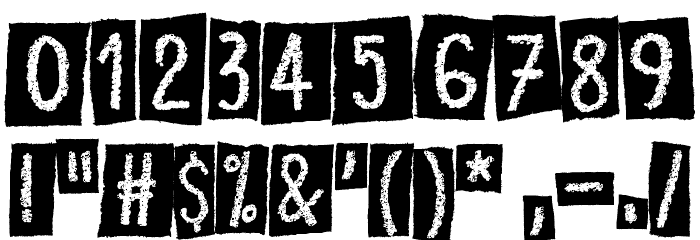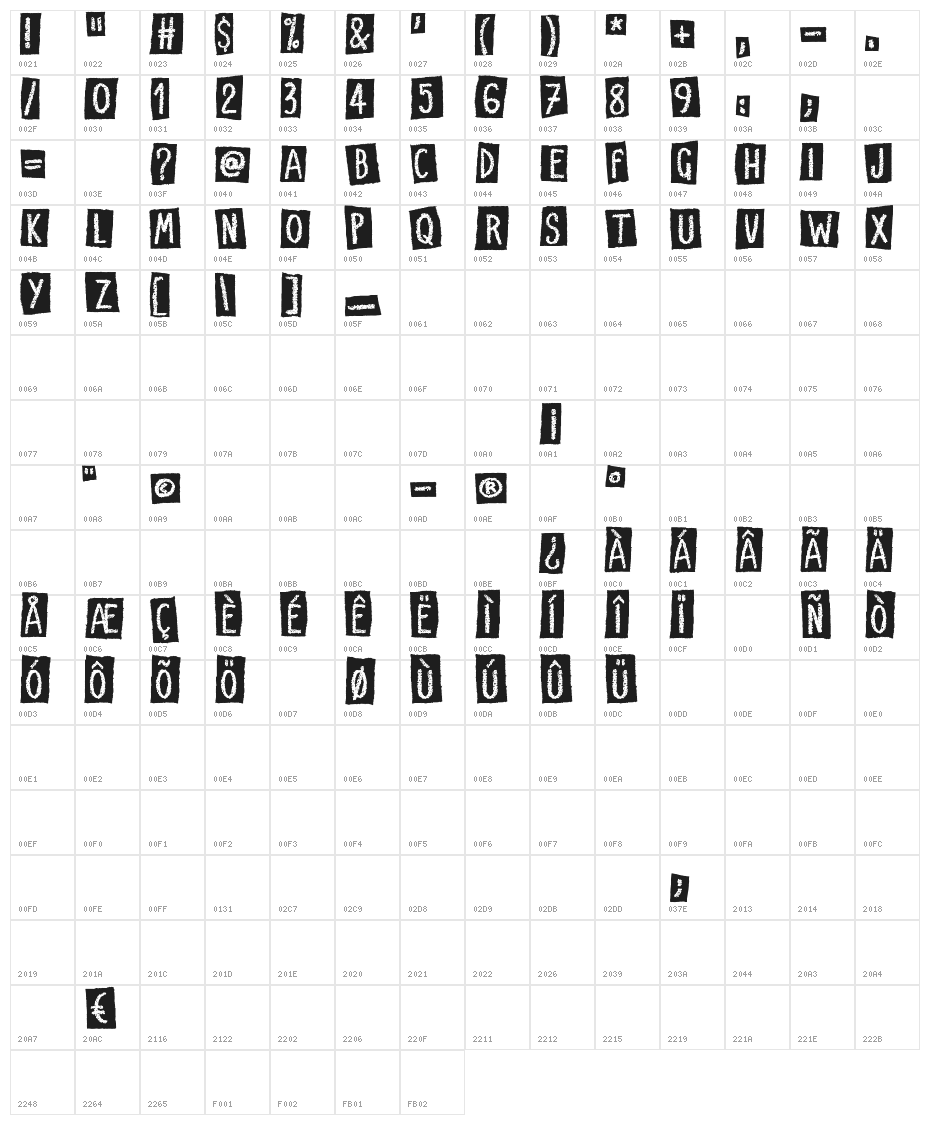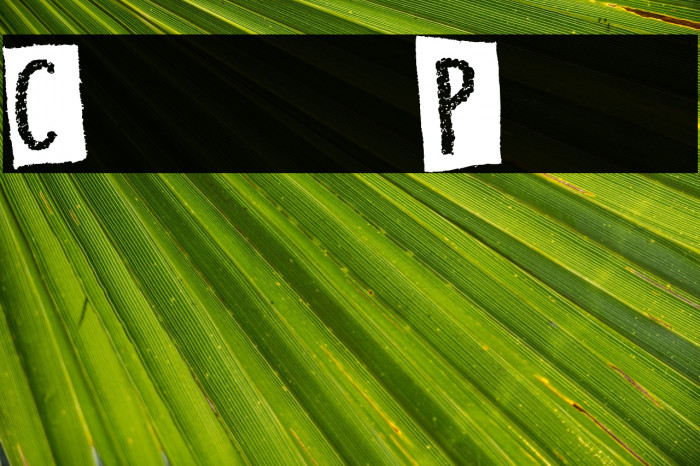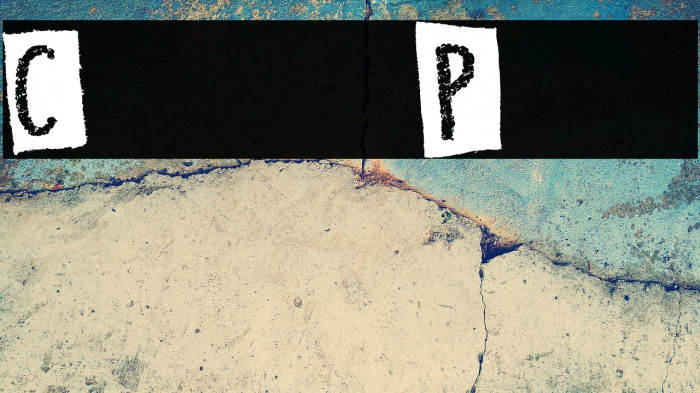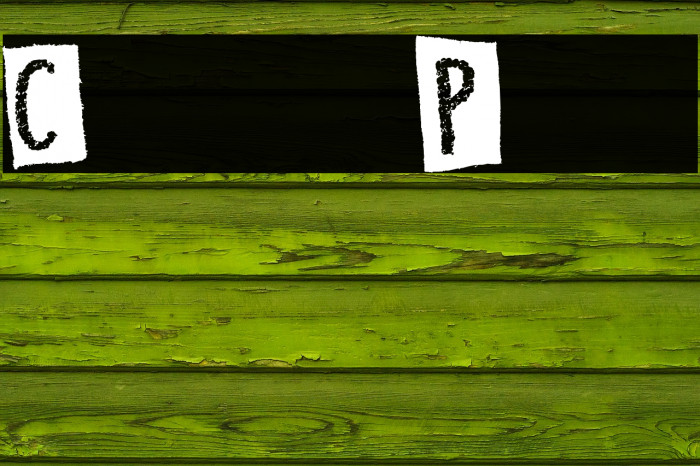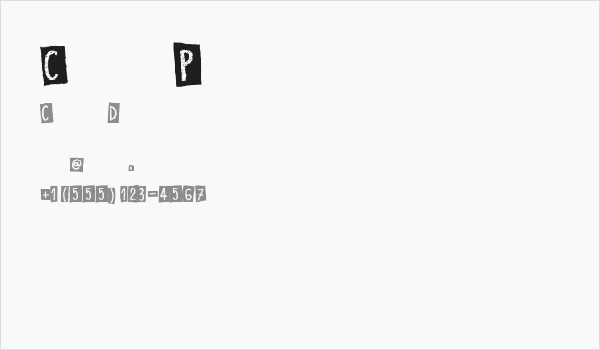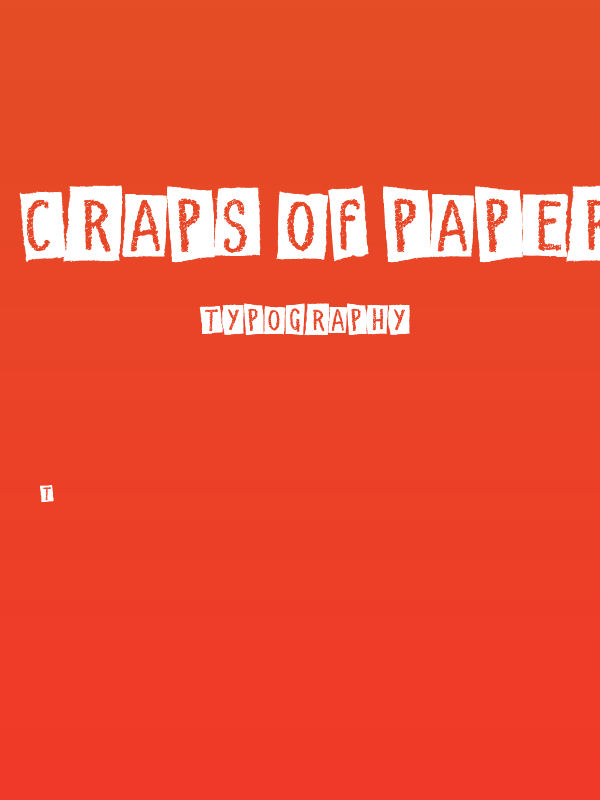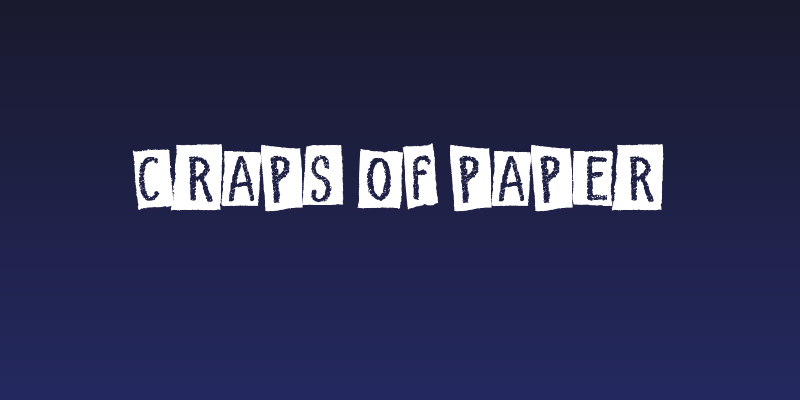
Craps of Paper Font
Craps of Paper Description
This font features a playful and artistic style, reminiscent of letters cut out from paper or magazines. Each character is enclosed in a rough, uneven black square, giving it a collage-like appearance. The letters and numbers have a hand-drawn, chalk-like texture, adding to the casual and creative feel. The irregular edges and varying sizes of the characters contribute to its unique and informal aesthetic, making it stand out in any design project.
| Proposed Projects | Ideal for creative projects such as posters, scrapbooks, children's books, and DIY crafts. It can also be used for branding that requires a fun and informal touch. |